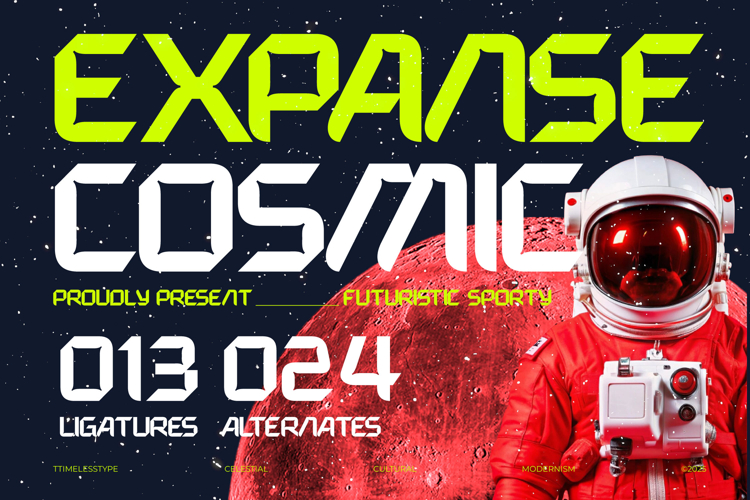
Expanse Cosmic - Futuristic Sporty Display Font
Elevate your design projects to the next dimension with Expanse Cosmic - Futuristic Sporty Display Font, a powerhouse display typeface engineered for maximum visual impact. This striking design masterfully blends retro-futurism with aggressive contemporary athleticism. Its strong, angular architecture and meticulously crafted negative spaces deliver a look that is both cutting-edge and confidently structured, making it instantly recognizable in high-stakes environments. The segmented letterforms borrow from classic digital displays, but are modernized with fluid geometric precision.